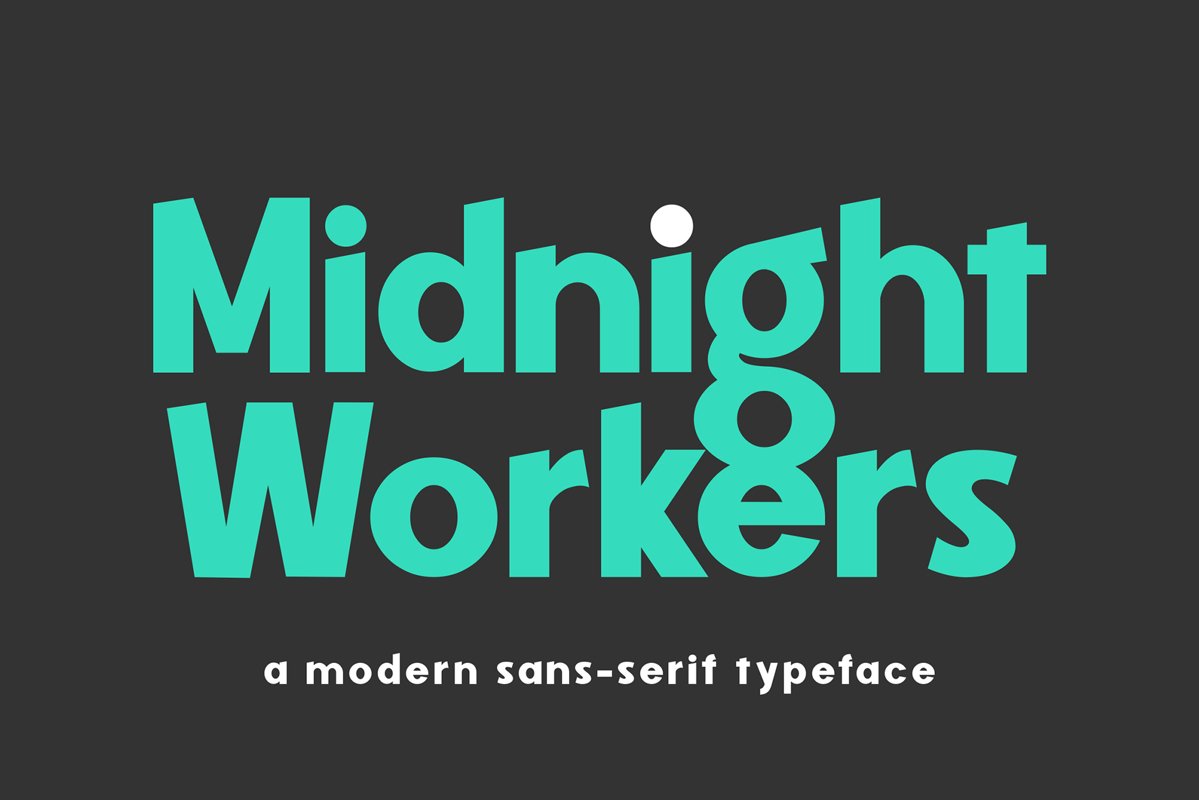
Midnight Workers
Midnight Workers is a Modern Sans-serif typeface inspired by freelancers who work late into the night to make a living for their beloved family. The simple and dynamic shape makes it very suitable to be used as headlines, logos, or other design needs that require a formal touch but still seem dynamic.